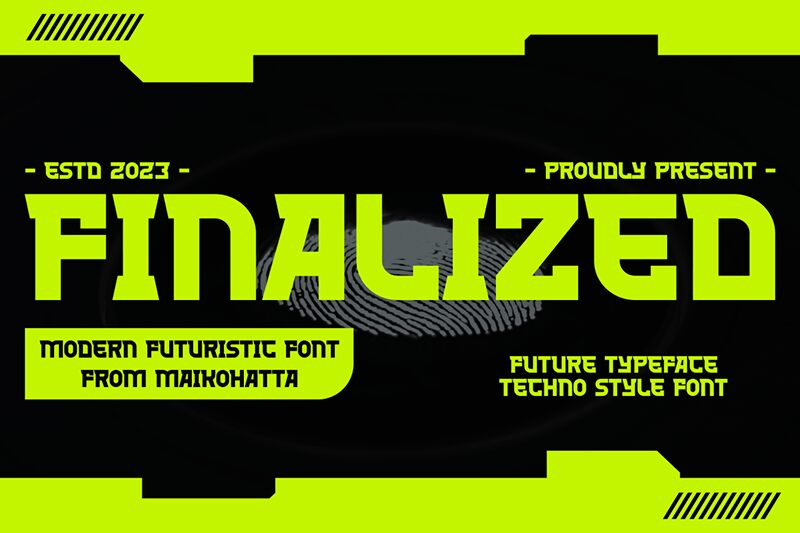
FINALIZED
Finalized font by Gilang Ternadho is a free bold techno display font. It stands out with towering vertical spines and precise, machined cut-ins that carve light into the heavy forms. The rhythm of slab-like bars and angular notches gives it a cyber‑industrial punch—hard-edged, compact, and built to lock up tightly in headlines without getting muddy.
Using Finalized, titles snap with authority for e‑sports branding, sci‑fi posters, game covers, streaming overlays, tech event signage, and gadget packaging. This free font thrives in all caps with a touch of extra tracking for breath. Pair it with a lightweight geometric sans for body copy to keep the message crisp and contemporary.